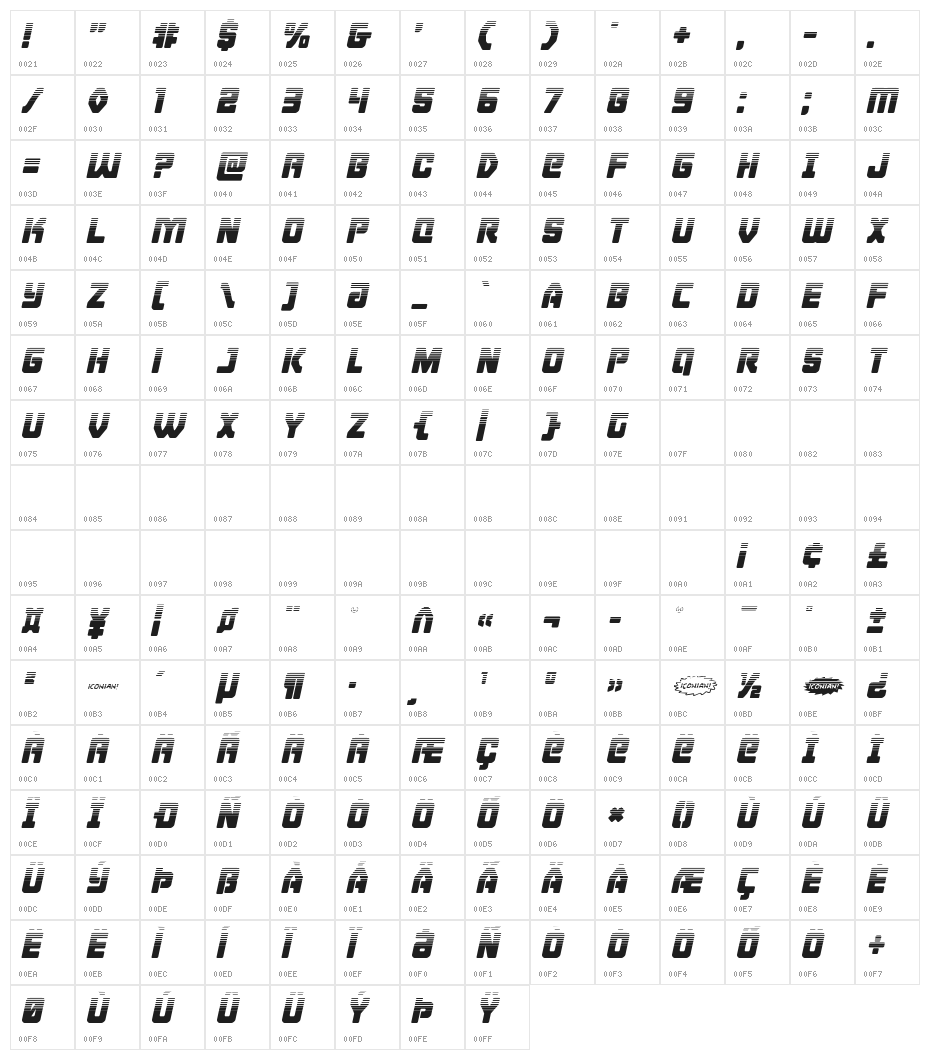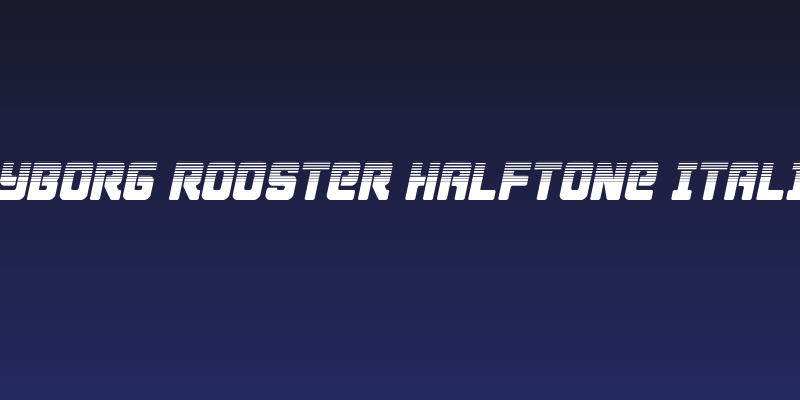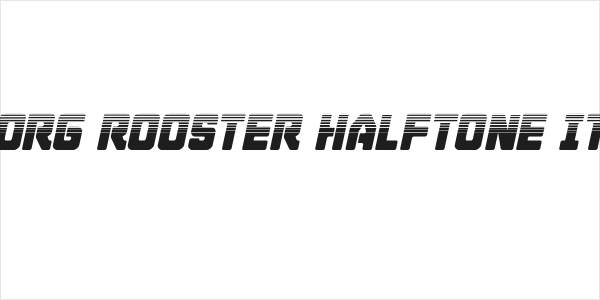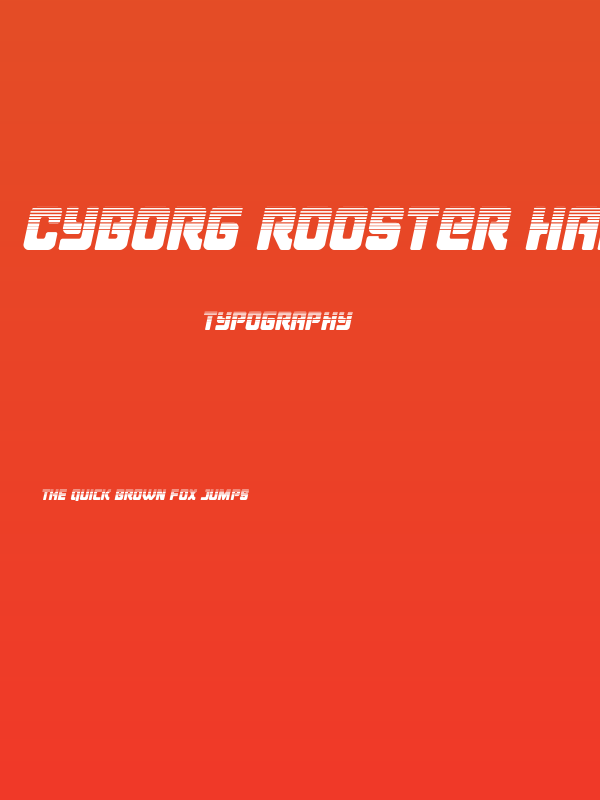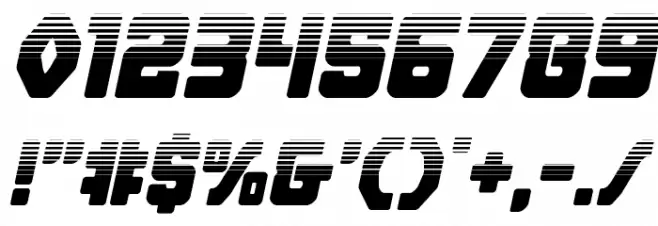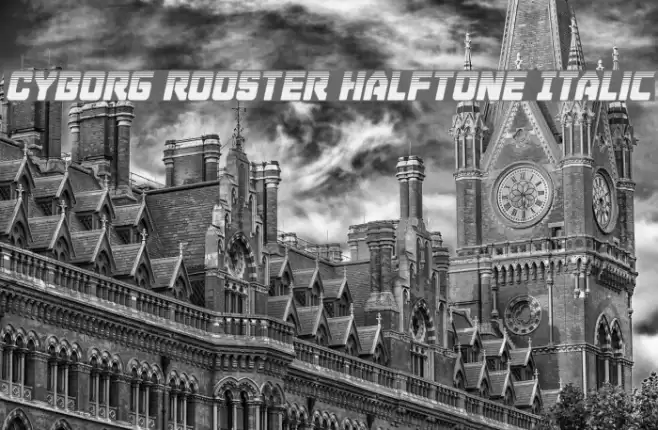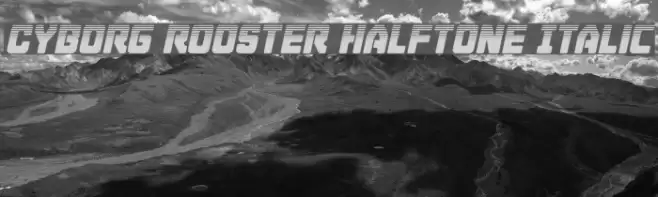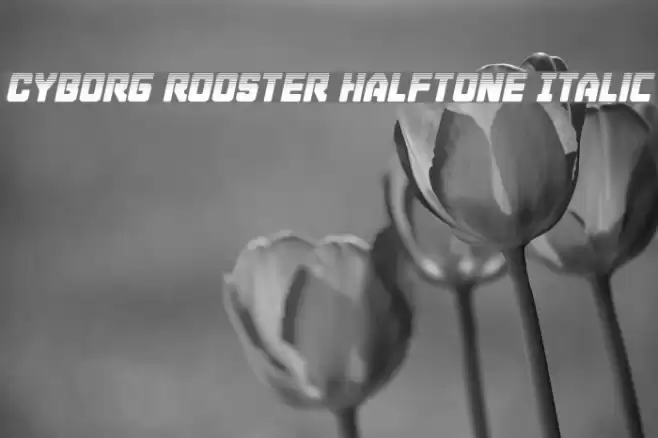
Cyborg Rooster Halftone Italic Font
Cyborg Rooster Halftone Italic Description
This font features a futuristic and dynamic design, characterized by its bold and italicized letterforms. Each character is infused with a halftone effect, creating a sense of movement and energy. The uppercase and lowercase letters, along with numbers and special characters, maintain a consistent style that is both modern and eye-catching. The use of horizontal lines adds a unique texture, making it ideal for projects that require a tech-savvy or avant-garde aesthetic.
| Overall Style | Futuristic |
| Proposed Projects | Ideal for sci-fi movie posters, tech company logos, video game titles, and futuristic event flyers. |